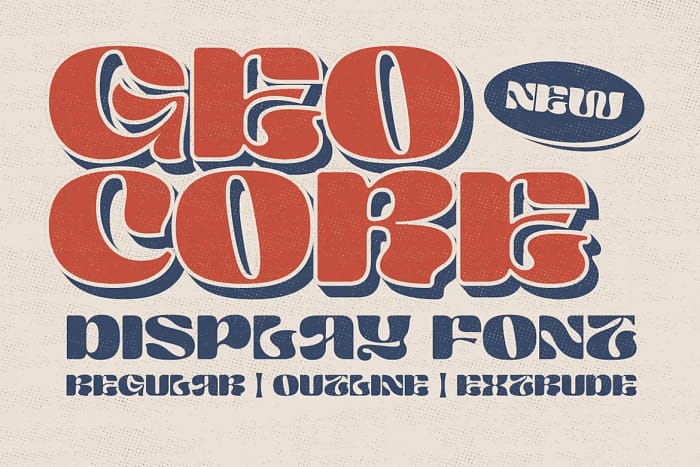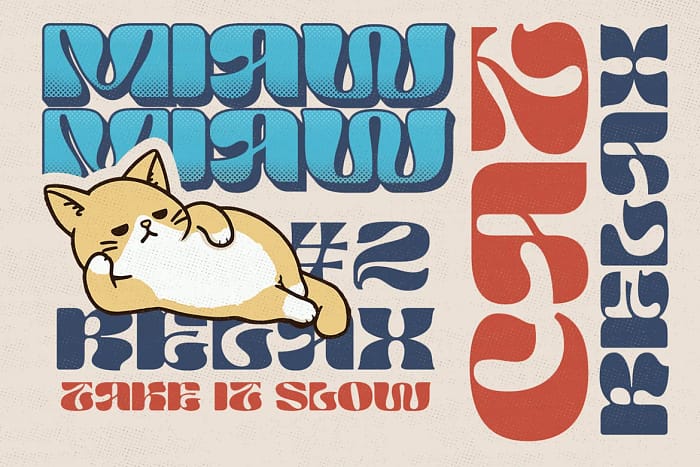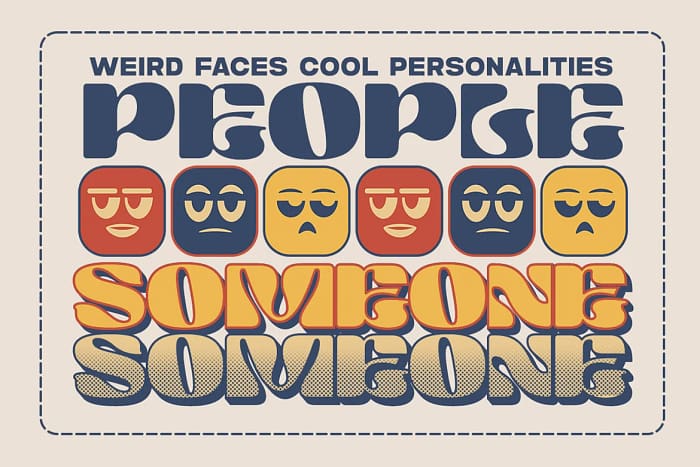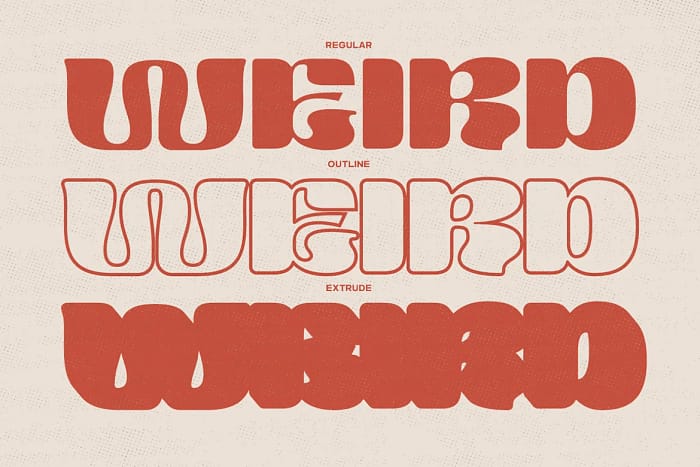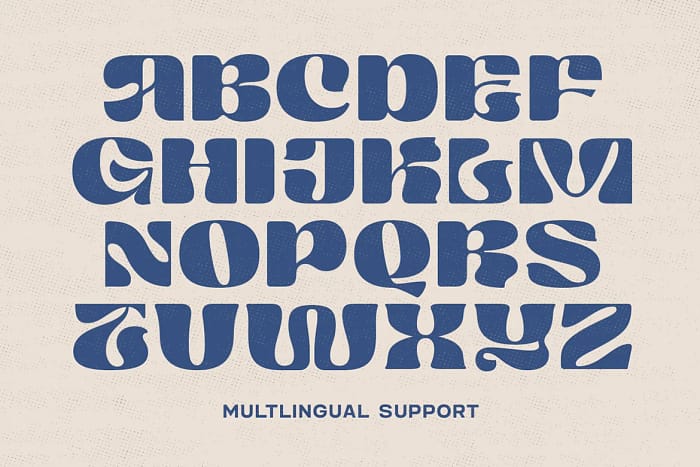
GEO CORE
Geo Core is an experimental display font that merges vintage charm with a futuristic edge.
Geo Core is an experimental display font that merges vintage charm with a futuristic edge. Its bold geometric shapes, combined with unique Extrude and Outline styles, create a versatile typeface that can evoke both retro and modern aesthetics. Perfect for eye-catching headlines, posters, logos, and album covers, Geo Core brings a distinctive, dynamic look to any project. Elevate your designs with Geo Core’s blend of nostalgia and innovation.